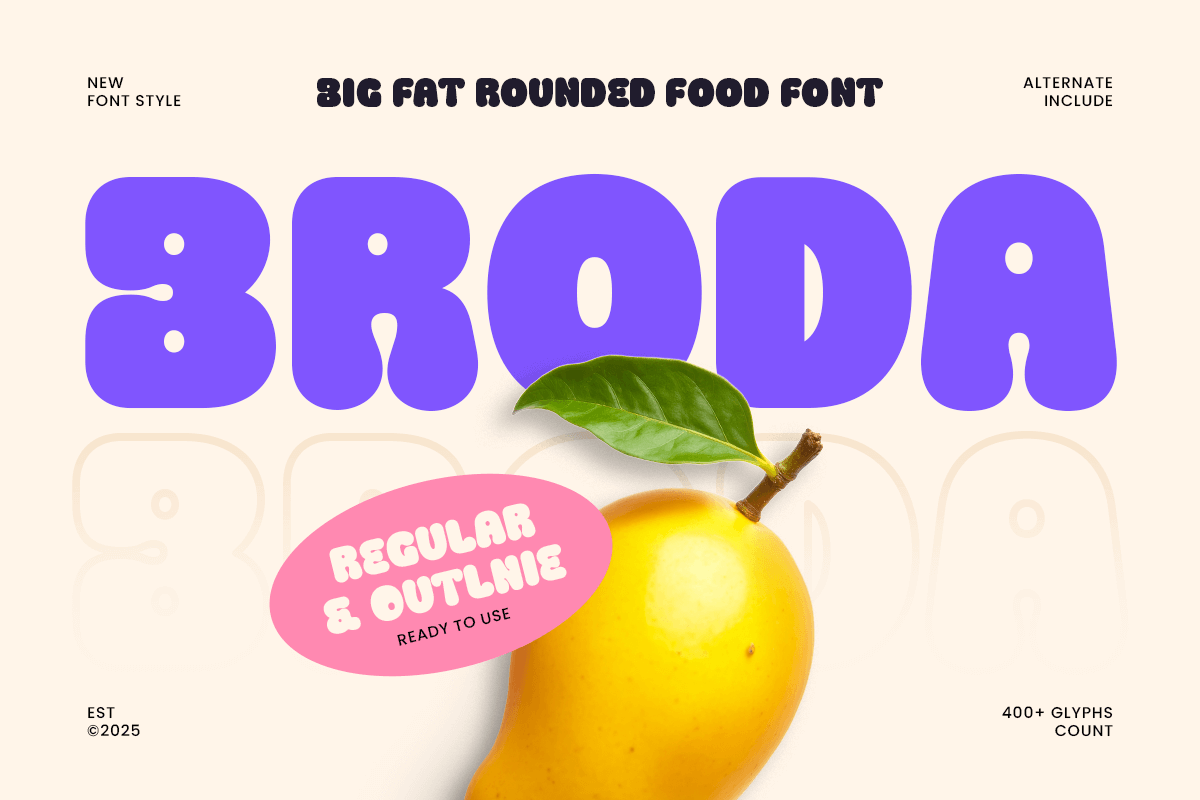
Broda
-Big Fat Rounded Food Font
Broda - Big Fat Rounded Food Font
BRODA is a big fat rounded food font designed to bring warmth, friendliness, and appetite appeal to your visual designs. With its soft curves, heavy weight, and smooth letterforms, it’s perfect for food packaging, restaurant branding, and cheerful advertising projects.
Crafted with a fun and approachable personality, BRODA adds a sense of flavor and delight to every composition. Whether used for logos, menu designs, or product labels, it delivers readability and charm that instantly attracts attention.
Ideal for cafes, bakeries, snack brands, and playful campaigns, BRODA combines modern simplicity with bold friendliness — making your typography pop with delicious energy.
BRODA – Big Fat Rounded Food Font Features
• Bold rounded display font with a playful look
• Perfect for food branding, packaging, and restaurant identity
• Soft edges and thick forms for friendly modern appeal
• Great readability for posters, menus, and advertisements
• OpenType features for creative design flexibility
Make your designs deliciously bold with BRODA – the ultimate rounded food font for playful, modern, and appetizing branding. 🍩✨